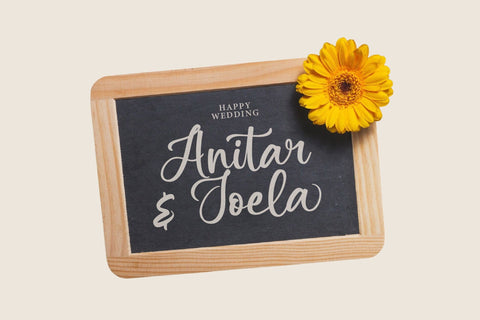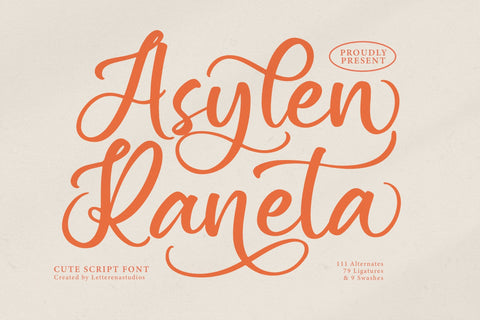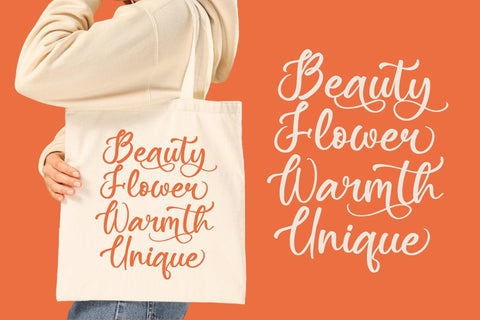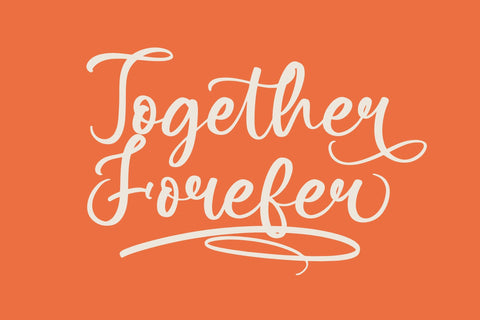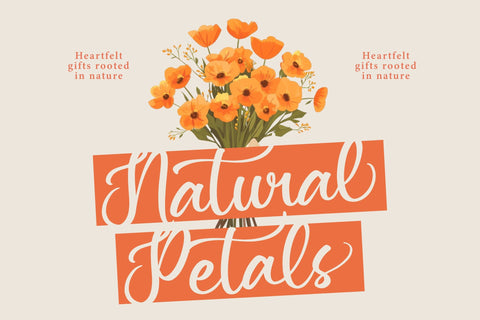
Asylen Raneta - Cute Script Font
Asylen Raneta - Cute Script Font , from Letterena, is a Luxury Script font, suitable for any projects such as: logos, branding projects, homeware designs, product packaging, mugs, quotes, posters, shopping bags, t-shirts, book covers, name card, invitation cards, greeting cards, label, photography, watermark, special events, and all your other luxury and beautiful projects that need a Luxury Script taste.
79 Ligature 111 Alternate & 9 Swashes